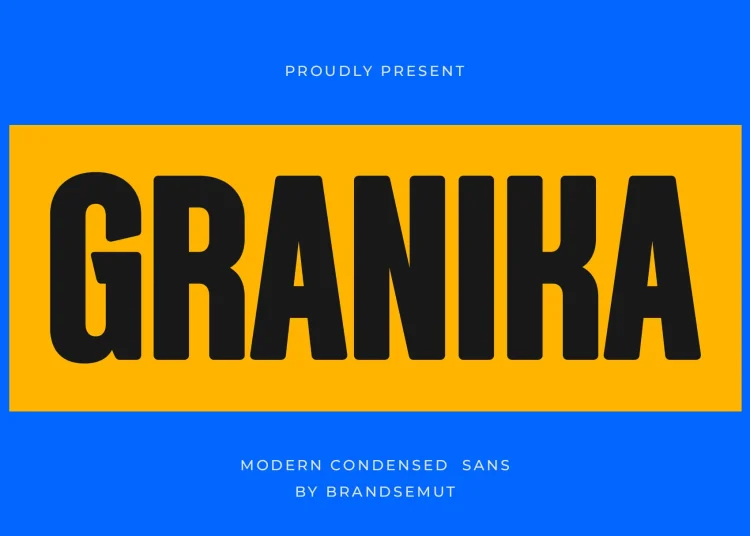
Granika Font
Granika is a sleek, modern sans serif font designed to bring a touch of sophistication to any design project. With its clean lines and smooth curves, Granika is perfect for a variety of applications, offering a polished and contemporary look.
Design Features
• Modern Simplicity: Granika’s design emphasizes simplicity and elegance, making it ideal for achieving a minimalist and stylish appearance.
• Clean Lines and Smooth Curves: The font features a balance of sharp lines and gentle curves, adding a refined touch to your designs.
Ideal Uses
• Headings and Logos: Make a bold statement with Granika in your headings and logos, where its modern style will draw attention and convey professionalism.
• Branding and Magazines: Enhance your branding efforts and magazine layouts with Granika’s elegant and versatile design.
• Product Packaging: The font’s clear and concise design is perfect for product packaging, ensuring your products stand out with a touch of class.
• Invitations: Add a sophisticated flair to invitations with Granika, suitable for both formal and informal events.
Special Features
• Versatile Application: Granika adapts well to various design contexts, from large-scale headings to smaller text elements, maintaining its readability and aesthetic appeal.